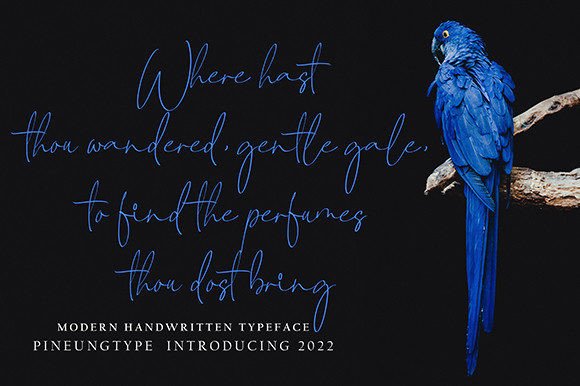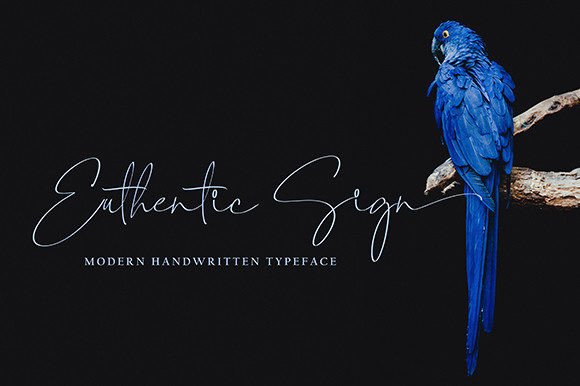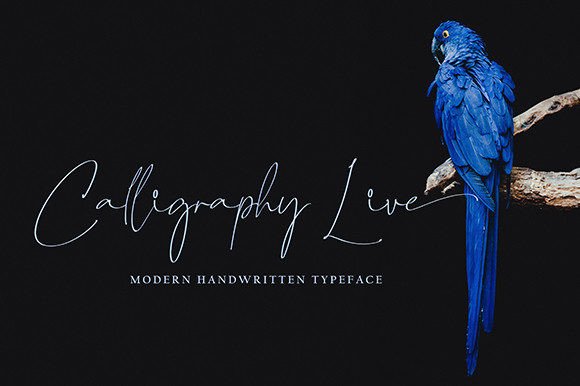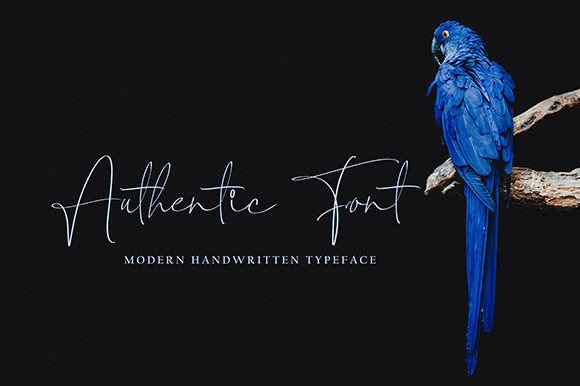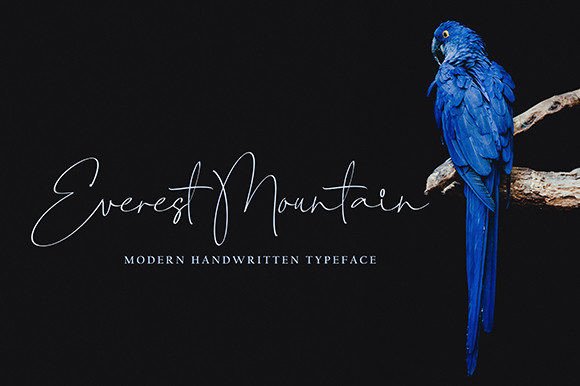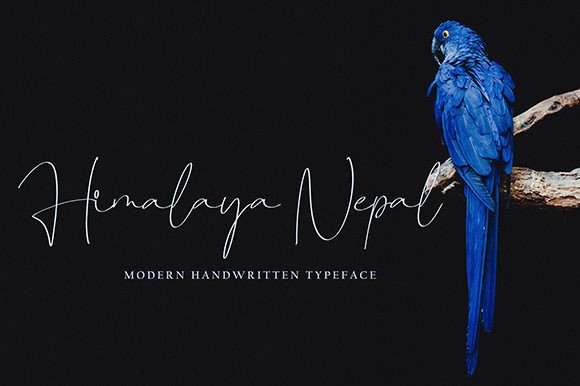
The Elusive Perfect Font: My Love Affair with Faster Shoutture
Ah, the quest for the perfect font. We’ve all been there – stuck in the middle of a project, pouring over font libraries, and still, nothing seems quite right. I recall a particularly frustrating design session where I was tasked with creating a brand identity for a trendy boutique. The client wanted something that exuded elegance, yet felt modern and fresh. That’s when I stumbled upon Faster Shoutture, an exquisite handwritten font that would change the game.
Faster Shoutture has quickly become a favorite in my design arsenal, and for good reason. Here’s what I love:
- ✨ Classy calligraphic influences: This font masterfully blends traditional calligraphy with a modern twist, making it perfect for projects that require a touch of sophistication.
- ✅ Contemporary feel: Faster Shoutture has a freshness to it that makes it ideal for brands looking to appear modern and trendy.
- 💫 Versatility: Whether you’re designing a logo, creating social media graphics, or crafting a brand style guide, this font adapts seamlessly.
Of course, no font is perfect, and I’ve encountered a few minor quirks:
- 🤔 Limited use of uppercase letters: While the uppercase letters are beautifully designed, they might not be suitable for all-caps headings or titles. A bit of creative workaround is needed here.
- ⚠️ Occasional kerning issues: As with any font, some manual kerning might be required to achieve perfect text rendering, especially in larger blocks of text.
- Experiment with OpenType features like ligatures and stylistic alternates to add personality to your text.
- Dive into the Glyphs panel to explore additional characters, such as swashes and alternates, to elevate your design.
The Story Behind Faster Shoutture: A Glimpse into Its Creation
While the actual story behind Faster Shoutture might be shrouded in mystery, it’s easy to imagine a designer, fueled by passion and a love for calligraphy, meticulously crafting each letterform. Perhaps the designer aimed to create a font that felt both nostalgic and cutting-edge – a true challenge in the world of typography.
Q: What makes Faster Shoutture unique?
A: Its perfect blend of classy calligraphic influences and a modern, fresh feel sets it apart.
Q: Is Faster Shoutture suitable for body text?
A: While it’s primarily designed for headings and titles, it can be used for short blocks of text. However, readability might decrease in larger bodies of text.